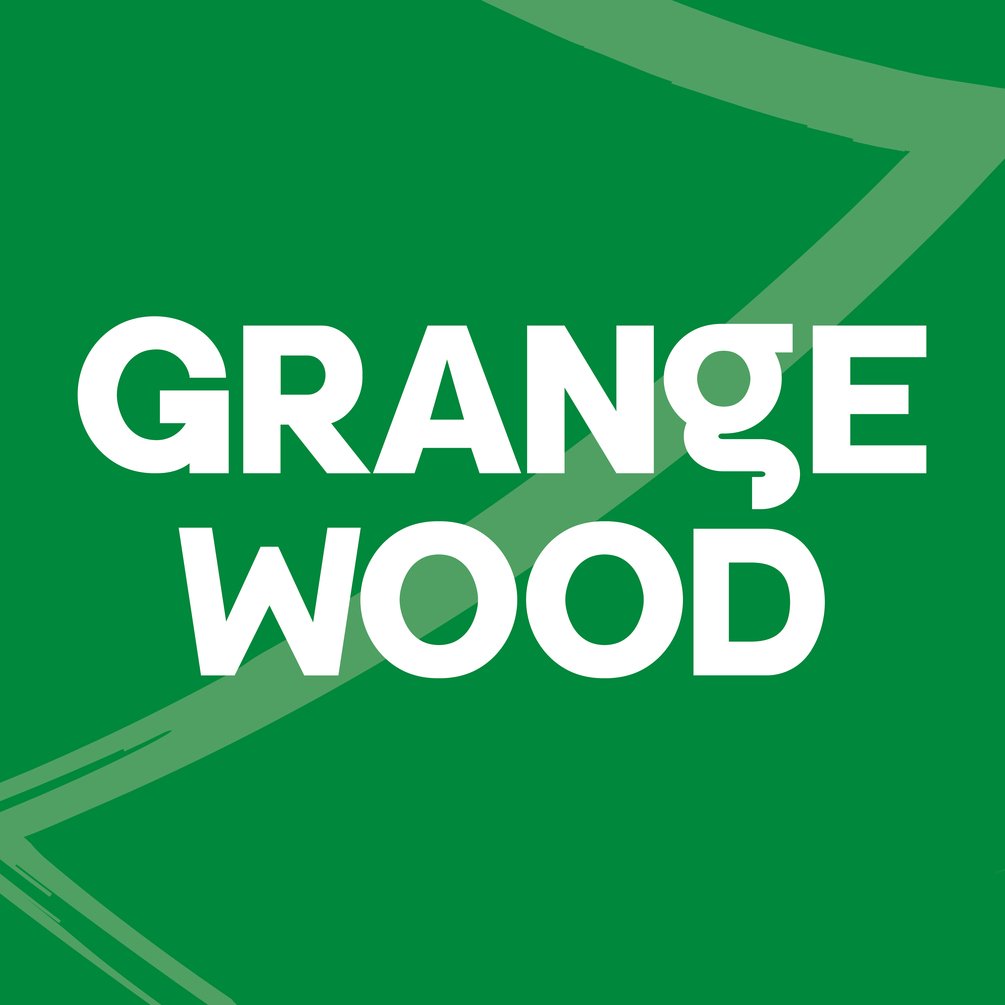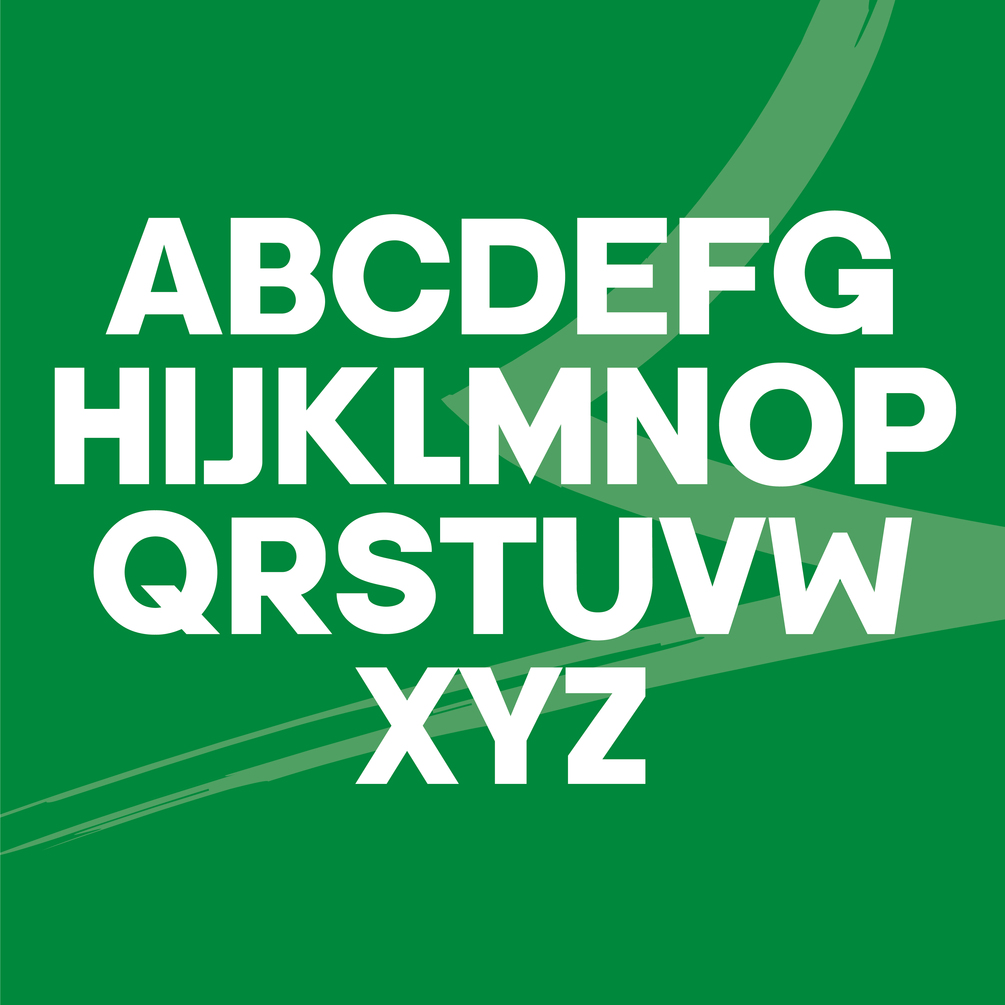
Grangewood
Grangewood is an all caps, sans serif, display typeface. Designed to be used in large format both in digital and physical.
Please note: This typeface is in development, only the uppercase A-Z letterforms are available at the moment, additional letters will be added at a later date.